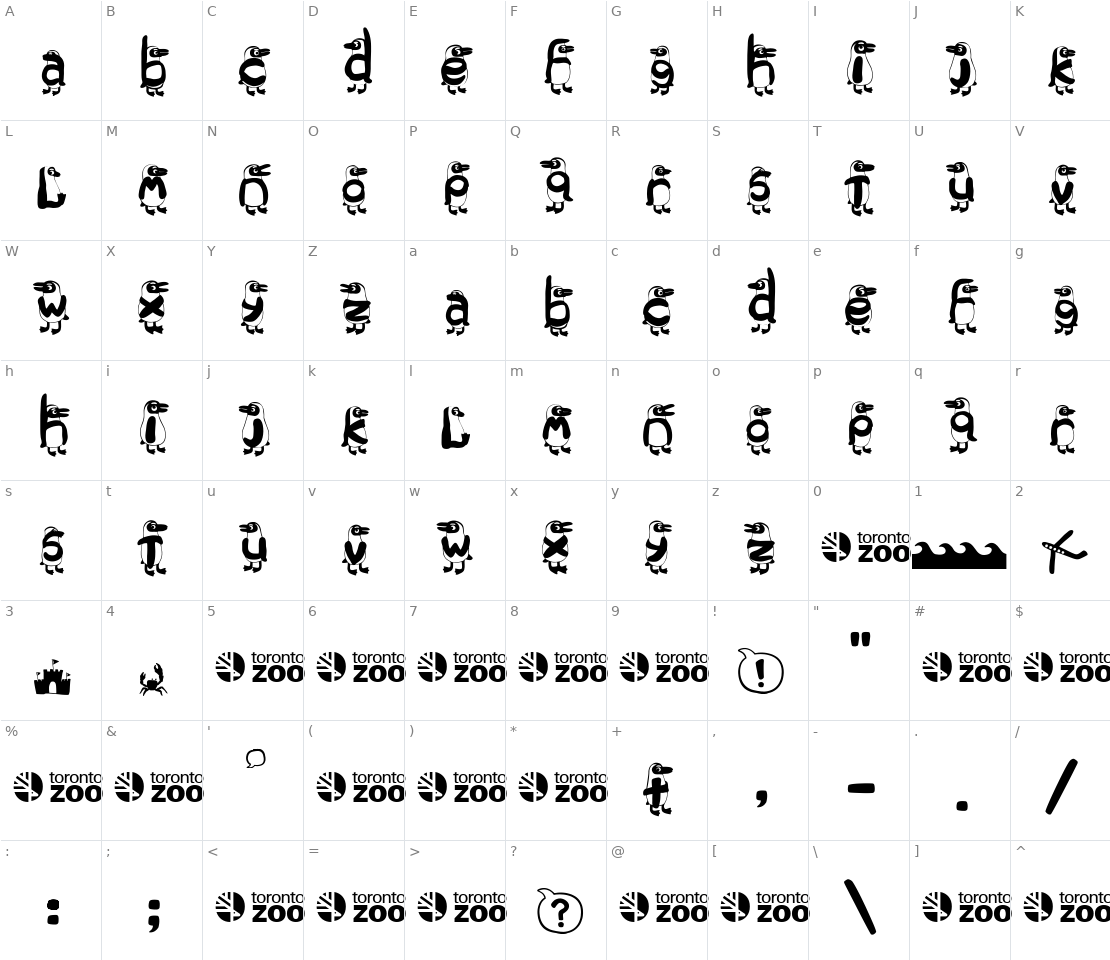
Toronto Zoo Penguins
Toronto Zoo Penguins is a playful novelty face created by the Toronto Zoo itself, with bold, cartoon-style letterforms that incorporate penguin-themed details into the design. The characters are chunky and expressive, clearly built for headlines, signage, and promotional material where the zoo's personality needs to come through immediately. It's about as niche as fonts get, but for children's events, animal-themed projects, or zoo branding, it does exactly what it set out to do.